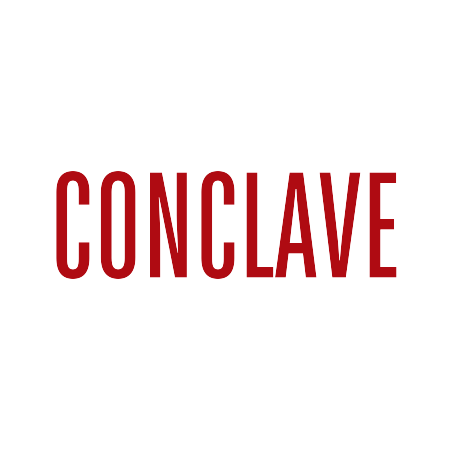
Conclave Font
Movie & TVConclave is a 2024 thriller film that dives into the secretive and intense world of papal succession. Following the sudden death of the Pope, Cardinal Lawrence, portrayed with gripping depth, is entrusted with overseeing the ancient ritual of electing a new leader of the Catholic Church. Confined within the Vatican alongside the church’s most influential cardinals, Lawrence uncovers a web of conspiracy that threatens to unravel the very foundation of the institution he serves.
The font used in the Conclave movie logo is TT Bluescreens, a sleek and modern typeface designed by TypeType. Its clean lines and structured design echo the film’s themes of order amidst chaos, making it a fitting choice for the title’s visual identity.